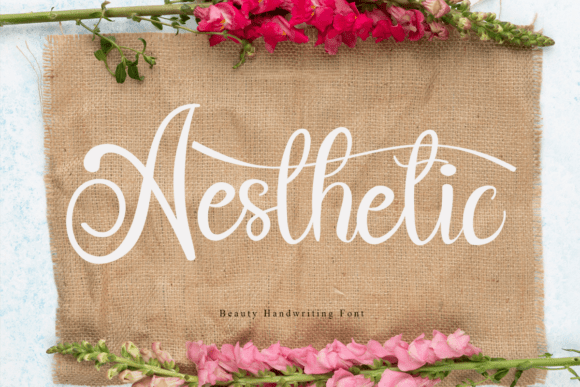
The Aesthetic Font: Elevating Your Designs with Elegance and Expressiveness
Have you ever been in the middle of a design project, pouring your heart and soul into it, only to hit a roadblock when it comes to choosing the perfect font? I certainly have. It was during one of those moments, working on a wedding invitation design, that I stumbled upon the Aesthetic font. It was love at first sight! The flowing, handwritten letters seemed to dance across the page, adding a touch of sophistication and elegance to the entire design. In this article, we’ll dive into the world of Aesthetic, exploring its features, uses, and what makes it a standout font for designers, crafters, and creative hobbyists.
A Personal Review: What I Love About Aesthetic
Aesthetic is a beautifully crafted font that truly stands out from the crowd. Here are some of the things I love about it:
- ✨ Elegant and Refined: Each character is meticulously designed to exude an artful elegance, making it perfect for projects that require a touch of sophistication.
- ✅ Expressive and Versatile: Aesthetic is a flowing handwritten font that can be used for a wide range of projects, from wedding invitations to branding and packaging.
- 💫 Timeless Appeal: Unlike some fonts that can look dated after a few years, Aesthetic has a timeless quality that will ensure your designs remain stylish for years to come.
While Aesthetic is an exceptional font, there are a few things to keep in mind:
- ⚠️ Legibility at Small Sizes: Like many script fonts, Aesthetic can be a bit tricky to read at very small sizes. It’s best used at larger sizes, such as 18pt or above.
- 🤔 Pairing with Other Fonts: Aesthetic is a bold font, so it’s essential to pair it with a font that provides a nice contrast. Some fonts may overpower Aesthetic, so it’s crucial to choose wisely.
A Practical Guide to Using Aesthetic
The Designer Inspiration Behind Aesthetic
While the true story behind Aesthetic’s creation remains a mystery, it’s easy to imagine that the designer was inspired by the world of traditional calligraphy. The font’s elegant, flowing lines and meticulous attention to detail evoke the work of master calligraphers throughout history. Whether or not that’s the case, Aesthetic is undoubtedly a font that will inspire designers and creatives to create something beautiful.
| What type of projects is Aesthetic best suited for? | Aesthetic is ideal for projects that require a touch of elegance and sophistication, such as wedding invitations, branding, packaging, and formal events. |
| Is Aesthetic a difficult font to read? | Like many script fonts, Aesthetic can be a bit tricky to read at very small sizes. However, at larger sizes, it’s clear and easy to read. |